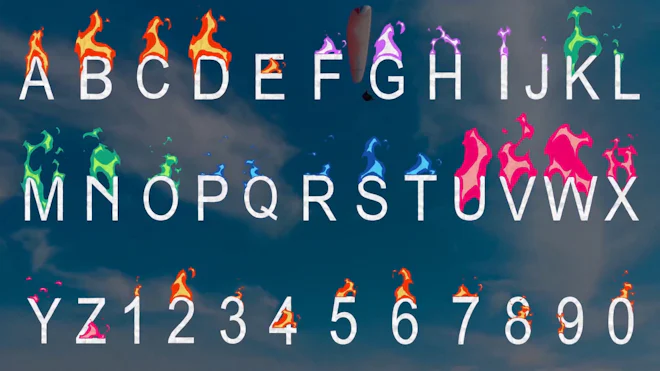
This Motion Graphics template features a dynamic style of letters and numbers. You can modify the colors to match your own style. Enhance your projects with this hand-drawn typography and infuse your words with energy and style. Try it now! A video tutorial is included in the package. Available in 4K.